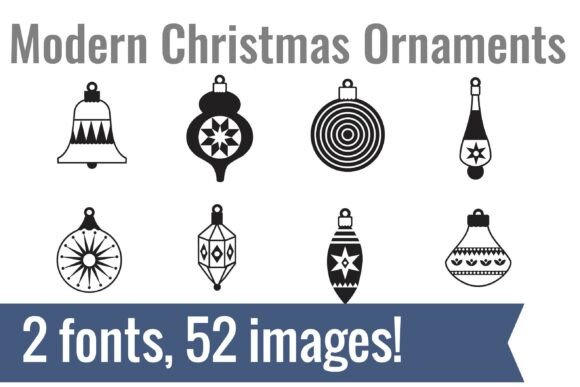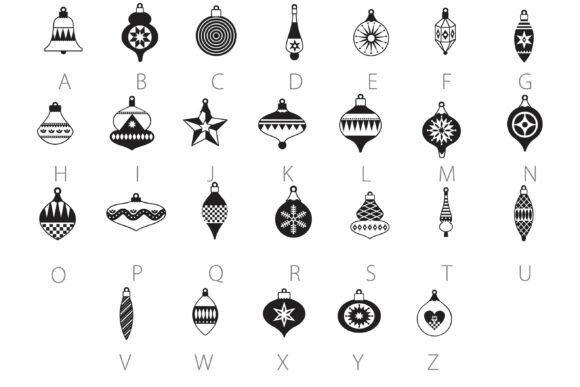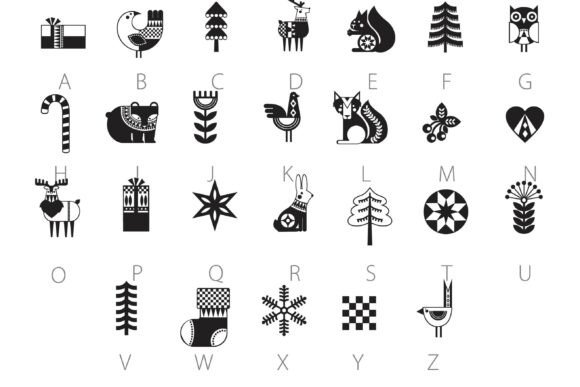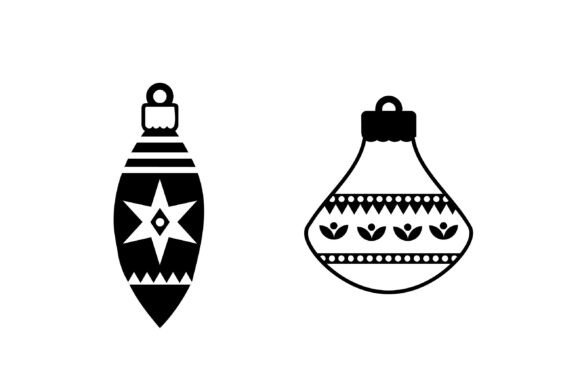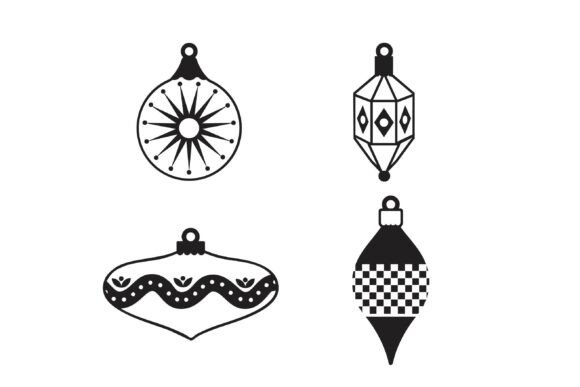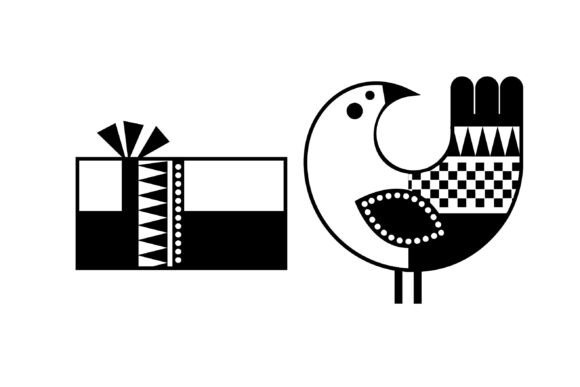
Introduction to Modern Christmas Dingbats Font
Unlock endless creativity with two perfectly coordinated fonts.
There are two dingbat fonts in this bundle, both featuring modern, geometric holiday designs Achieve a sophisticated, Scandinavian-inspired look for the holidays with the Modern Christmas font set, a striking pair of dingbat typefaces defined by bold geometric shapes and folk-art patterns.
Key Features of Modern Christmas Dingbats Font